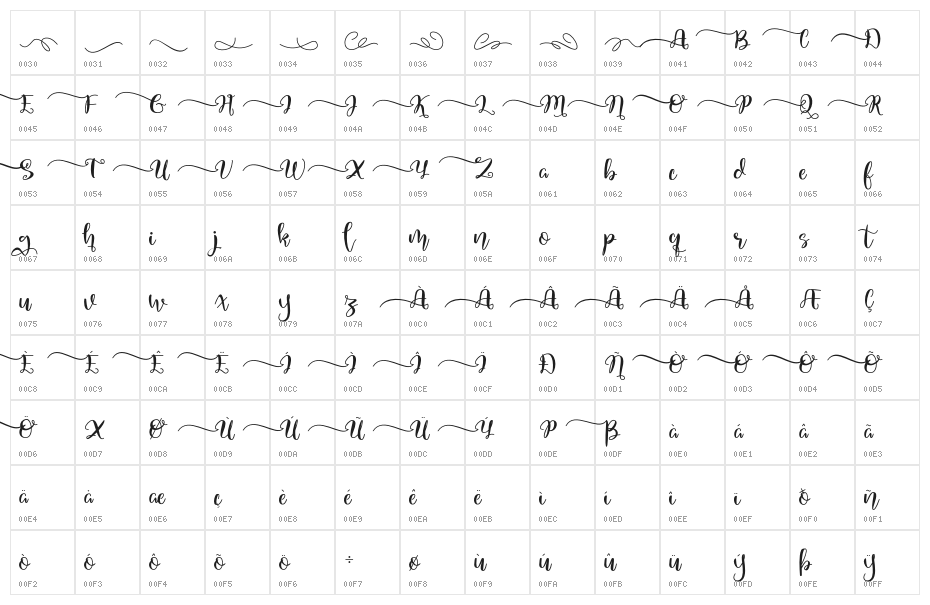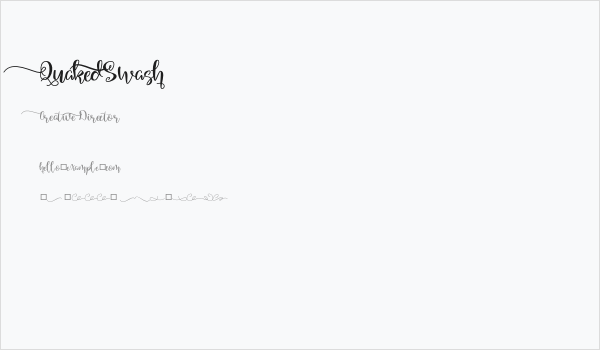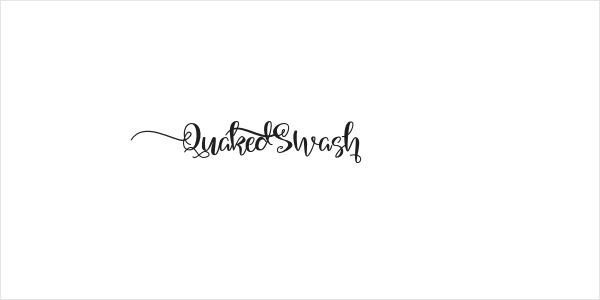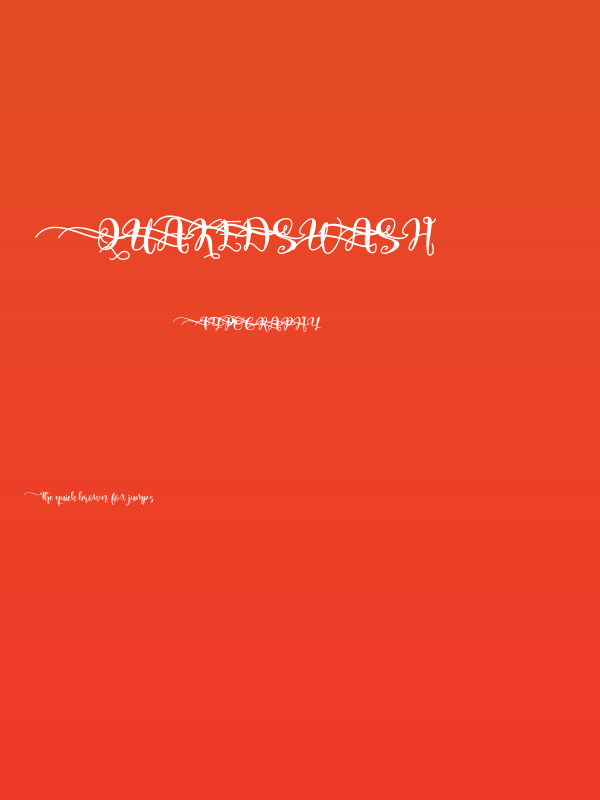
QuakedSwash Font
QuakedSwash Description
This font features an elegant and intricate script style, characterized by its flowing, interconnected letters and elaborate swashes. The uppercase letters are particularly ornate, with extended loops and flourishes that give a sense of movement and sophistication. The lowercase letters maintain a consistent style, with smooth curves and a slightly playful touch. The overall appearance is both artistic and refined, making it suitable for creative and decorative applications. The font's unique style is enhanced by its high contrast between thick and thin strokes, adding to its visual appeal.
Use CaseLogos, Invitations, Decorative text
Proposed ProjectsIdeal for wedding invitations, elegant branding, greeting cards, and decorative posters.